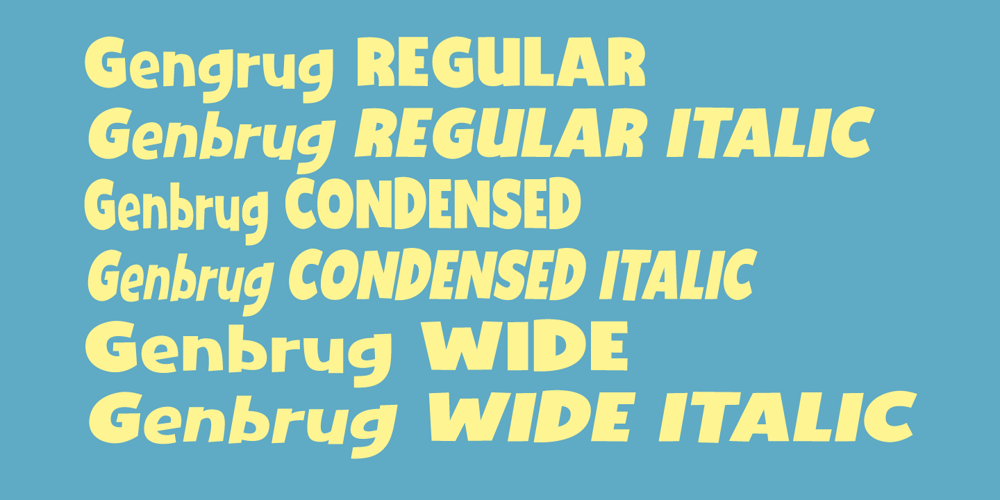
Genbrug
Genbrug font
Genbrug Font Family was designed by Jakob Fischer and published by PizzaDude.dk. Genbrug contains 6 styles and family package options. A cool comic like font! Note that the CAPS are way fatter than the lowercase – it’s like two fonts in one! Play around with the Regular, Condensed and Wide versions (they all have an Italic version as well!)